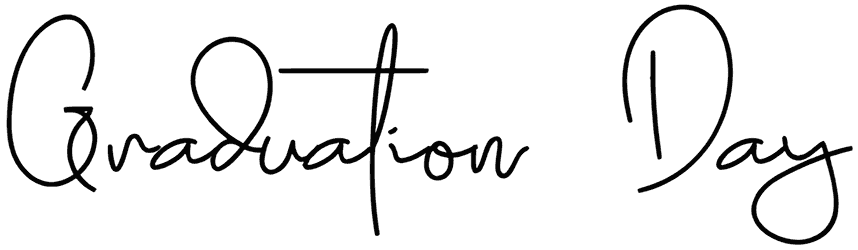
Graduation Day Font
Graduation Day is an important milestone for those who love script fonts. This classic handwritten font can create designs for you that revolve around credibility and originality, and be a perfect synergy of creativity, human emotions, and natural states.
This script font looks ideal for designing signatures, writing on the packaging, and performing a creative tattoo, and smartly shows a classic presentation of your projects.
Graduation Day is a dazzling script font. This font is neatly crafted and highly detailed. Whatever the topic, this font will be a wonderful asset to your font library, as it has the potential to enhance any creation.